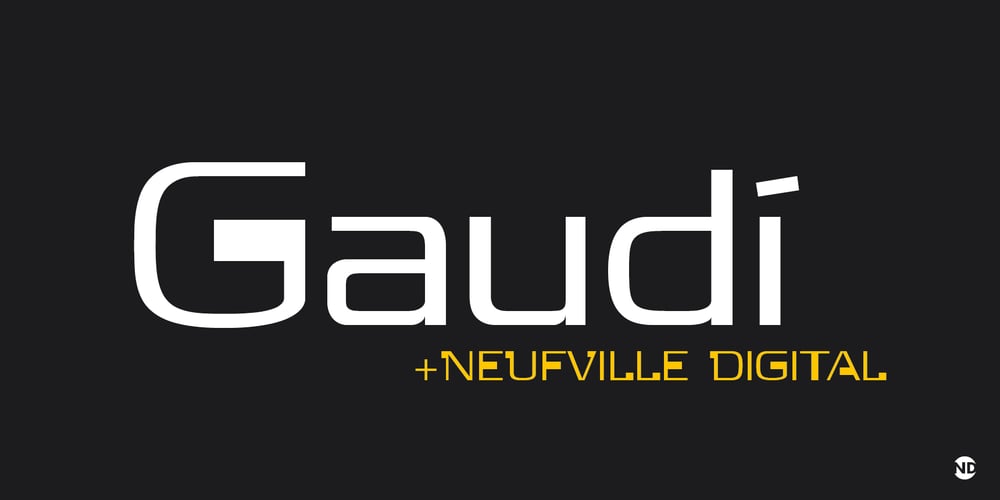
Gaudi ND Font Family was designed by Ricard Giralt Miracle and published by Neufville Digital. Gaudi ND contains 1 styles and family package options. Gaudí ND was designed in 1962 by Ricard Giralt Miracle and awarded with a Delta d’Or from ADIFAD. It combines the constructive spirit of the lapidary Roman with the modern sans serif. The rectangular endings constitute a recurring rhythm, resulting in a futuristic character that refers to a digital context and the interior life of computers.Gaudí is a Trademark of BauerTypes SL.